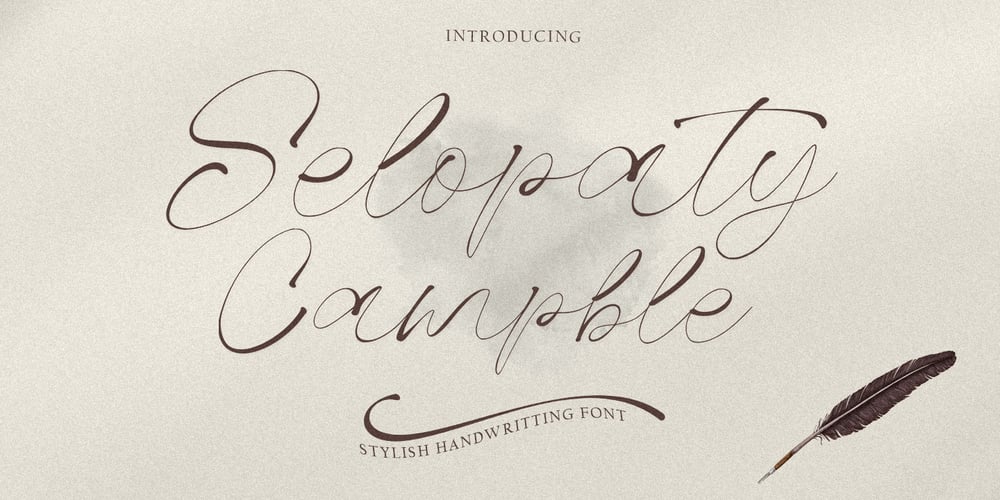
Selopaty Campble
Selopaty Campble font
Selopaty Campble Font Family was designed by Muhammad Taufik and published by Rastype Studio. Selopaty Campble contains 1 styles and family package options. Selopaty Campble is a beautiful and cool handwritten signature font. Looks amazing on branding, quotes, business cards and other designs.The font includes multiple language support.Happy Designing!